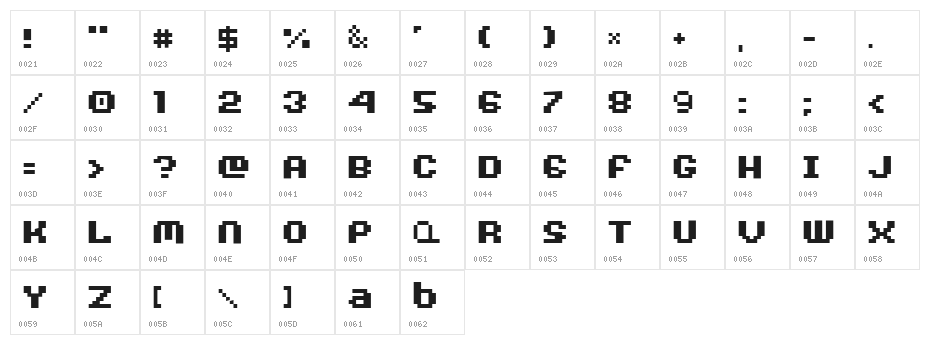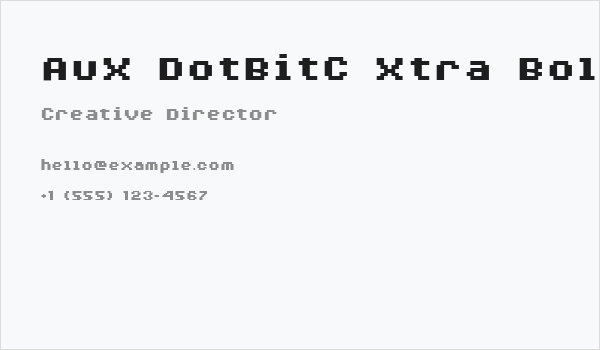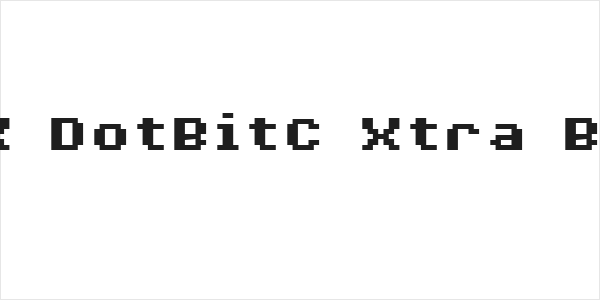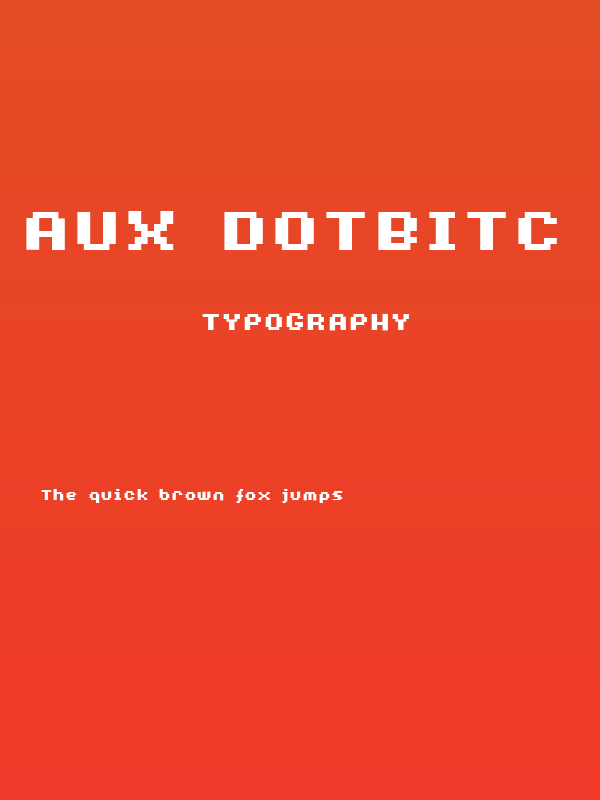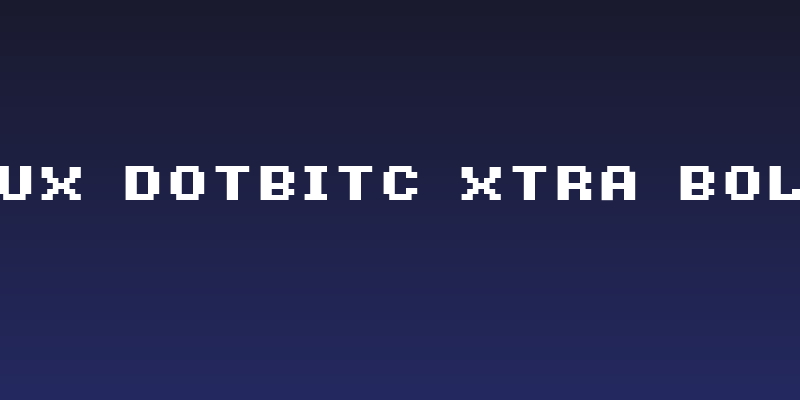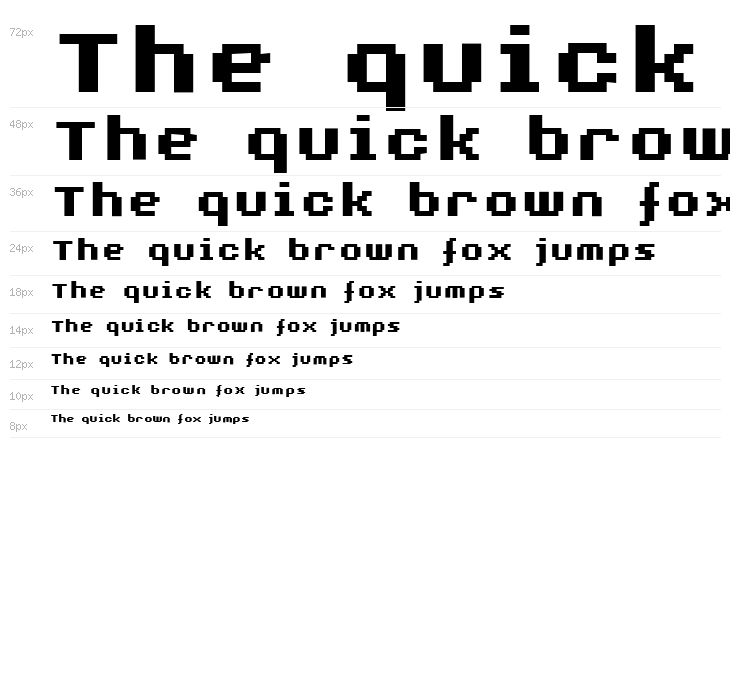
AuX DotBitC Xtra Bold Font
AuX DotBitC Xtra Bold Description
This font features a bold, pixelated design reminiscent of early digital displays and video games. Each character is constructed with a grid-like structure, giving it a blocky and geometric appearance. The uppercase and lowercase letters maintain a consistent height, enhancing the uniformity and legibility of the text. The numerals and special characters follow the same pixelated style, ensuring a cohesive look across all glyphs. This font's retro aesthetic is ideal for projects that aim to evoke nostalgia or a digital theme.
Overall StyleRetro, Digital
Proposed ProjectsIdeal for video game graphics, retro-themed posters, digital art, and tech-related branding.